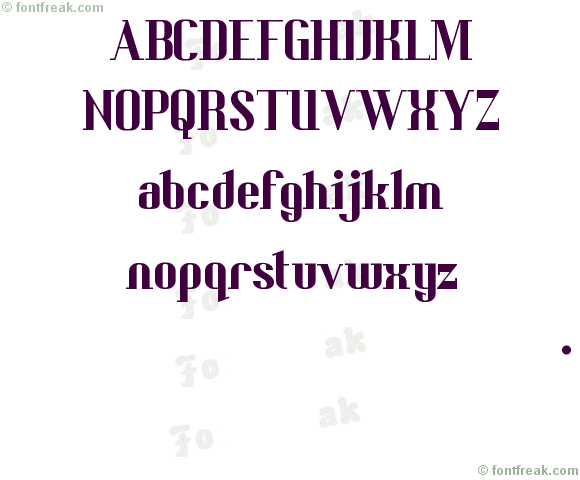
Bedric's Worth
About Bedric's Worth
Bedric's Worth, designed by Steve Gardner, is a striking serif font that elegantly balances classic typography with a modern twist. This font features a distinctive stroke weight that varies subtly, creating visual interest and ensuring readability. The contrast in the letterforms gives a sense of sophistication, while the generous spacing between characters enhances legibility, making it suitable for various applications. With its refined decorative elements, Bedric's Worth embodies a timeless appeal that can elevate any design project.
This versatile font is particularly well-suited for use cases such as wedding invitations, where its elegant style can convey a sense of romance and celebration. It also shines in movie posters, adding a touch of gravitas and drama that draws attention. Restaurant menus can benefit from its sophisticated aesthetic, helping to create an inviting atmosphere. Additionally, branding materials for small businesses, especially those in the fashion or lifestyle sectors, can leverage Bedric's Worth to communicate a sense of quality and style.
What sets Bedric's Worth apart is its ability to blend tradition with contemporary design elements, resulting in a font that feels both familiar and fresh. Whether you're working on a personal project or professional branding, the Bedric's Worth font free download provides an exceptional choice for anyone looking to make a lasting impression. Its distinctive character will undoubtedly elevate your designs and resonate with your audience.